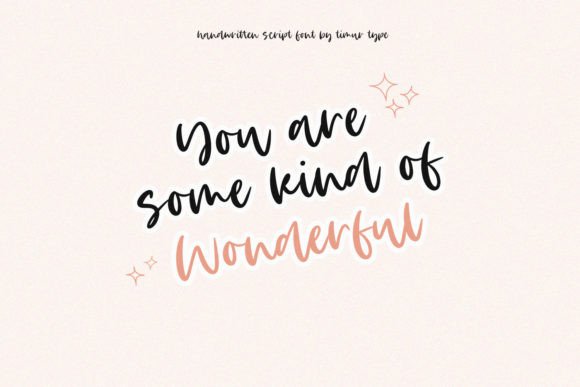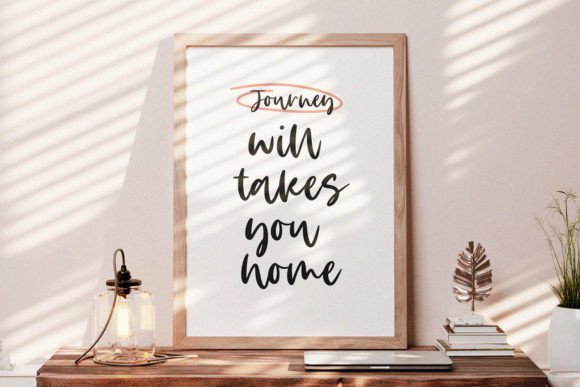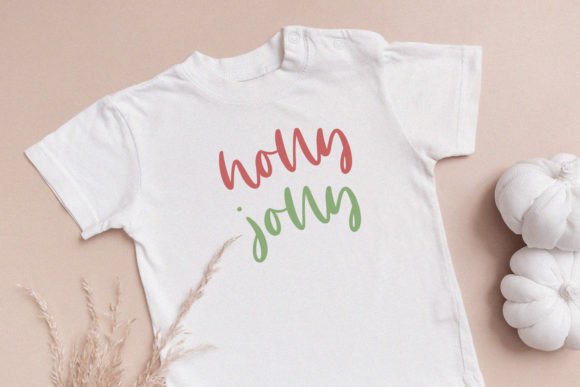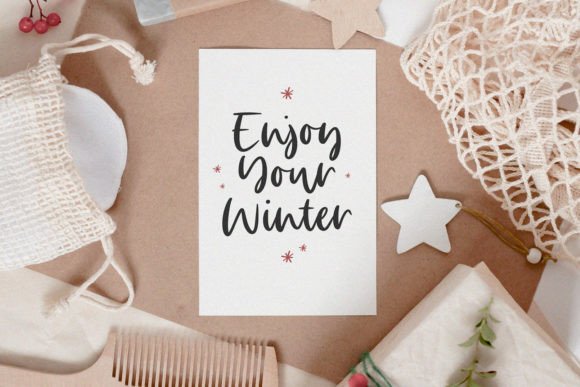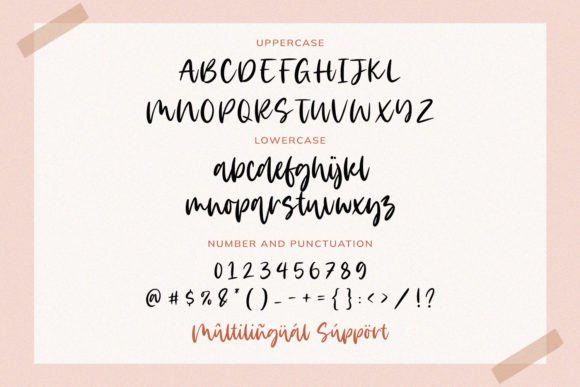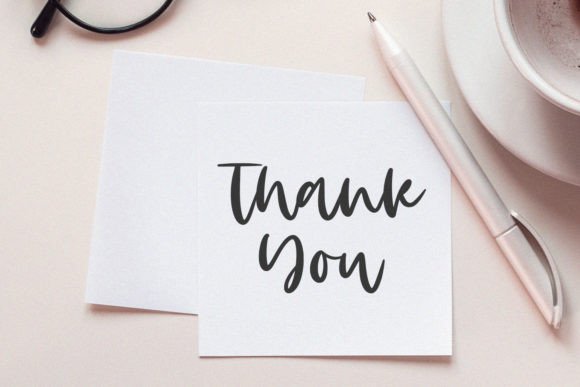
Rabioten: An Elegant and Lovely Script Font for Creative Projects
Looking to bring charm and elegance into your next design? Meet Rabioten, an elegant and lovely script font that adds personality, warmth, and a handcrafted touch to any project. Carefully created with attention to detail, this font is perfect for both formal and playful uses.
Whether you’re designing a wedding invitation or building a brand identity, Rabioten brings beauty and clarity together in one graceful package.
Add Elegance and Emotion to Your Work
Fonts can dramatically influence how your design is perceived. Rabioten strikes the perfect balance between stylish flow and friendly readability. Thanks to its smooth curves and soft edges, this elegant and lovely script font is suitable for everything from product packaging to heartfelt quotes.
Here are a few great ways to use Rabioten:
Packaging for skincare, candles, or handmade goods
Wedding invitations and save-the-dates
Elegant business logos or boutique branding
Social media posts, especially Instagram or Pinterest
Greeting cards, quotes, and inspirational prints
Magazine spreads and stylish blog headers
With its gentle movement and well-crafted forms, Rabioten can be the highlight of your design.
Why Rabioten Is a Designer’s Favorite
Rabioten isn’t just aesthetically pleasing—it’s practical. Its letterforms are highly legible, and the strokes are balanced to maintain readability even in small sizes. As a result, it’s just as effective on printed labels as it is on a digital screen.
Designers choose this font because it:
Offers an emotional, handwritten feel
Works in both minimalist and detailed layouts
Blends beautifully with modern branding aesthetics
Helps express elegance without appearing overly formal
Elevates basic text into a refined design element
This elegant and lovely script font helps you say more with less.
Perfect for Every Creative Occasion
From heartfelt gifts to high-end branding, Rabioten adapts effortlessly. Its soft, modern script style is versatile enough to match both professional and personal projects.
It’s ideal for:
Boutique and luxury branding
Romantic content and wedding design
Handmade product packaging
Journals, planners, and printables
Expressive word art and typographic visuals
Whenever you need to combine beauty with emotion, Rabioten is a perfect fit.
A touch of elegance can change everything. With Rabioten, your designs gain a sense of sophistication and charm that connects with your audience. If you’re searching for a typeface that reflects creativity, care, and beauty, this elegant and lovely script font is exactly what you need.